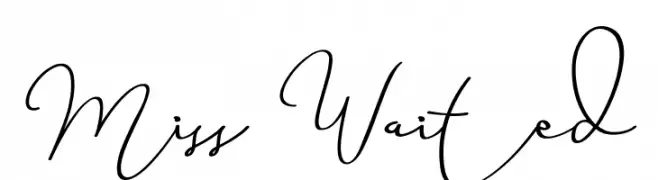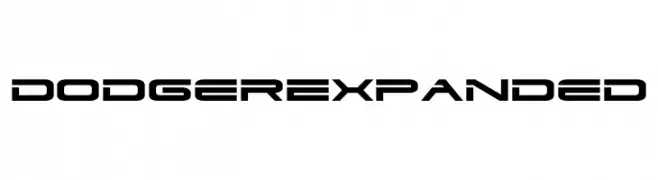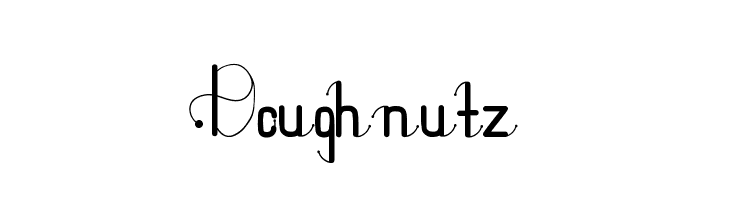
An elegant, flowing script font with ornate, cursive letterforms.
A classic serif font with elegant swashes and decorative flourishes.
A bold, dynamic script font with strong, slanted characters.
A bold, geometric font with angular and modern design elements.
A playful, handwritten font with medium contrast and casual style.
A graceful and elegant script font with flowing, connected letters.
A modern sans-serif font with an italic slant, offering a sleek and dynamic look.
A futuristic, geometric font with bold, expanded characters and a modern aesthetic.
A playful, handwritten font with an organic, casual style.
A bold, geometric font with a three-dimensional effect and strong contrast.